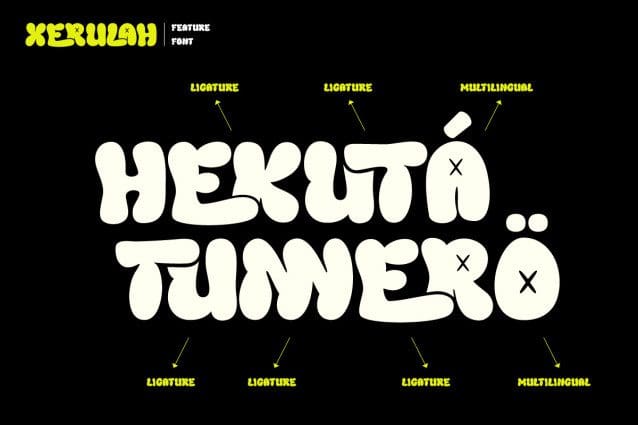
Xerulah Bubble Font
Xerulah Bubble Font, a bubble graffiti font that bursts with energy and creativity. Xerulah Bubble is designed for those who dare to be different, offering a playful yet powerful style that’s perfect for street art, urban branding, and dynamic design projects. The bold, rounded shapes and graffiti-inspired aesthetics make Xerulah a standout choice for logos, posters, and apparel designs that demand attention. With Xerulah, your designs will not only speak but shout with excitement and originality. Embrace the edgy, artistic vibe of Xerulah and let your imagination run wild.